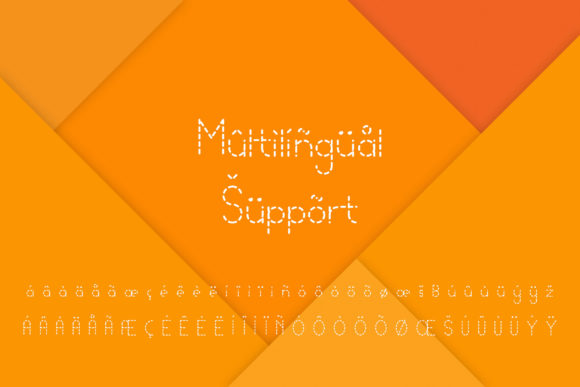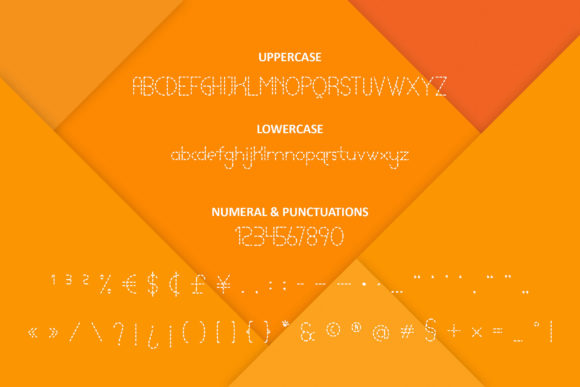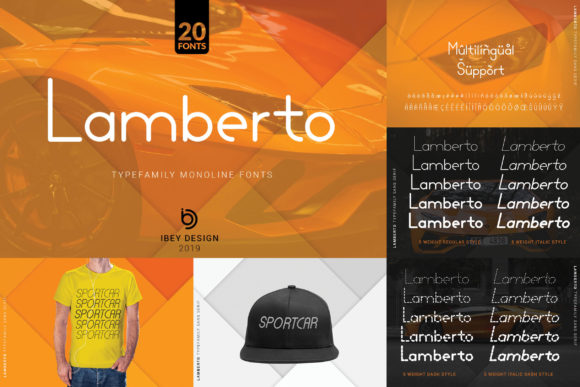
Introduction to Lamberto Light Dash Font
As a designer, have you ever found yourself staring at a blank canvas, searching for the perfect font to bring your creative project to life? The search can be endless, but sometimes, the perfect font comes along and changes everything. For us, that font is Lamberto Light Dash Font – a stunning monoline display font that combines classic lettering with a bold, contemporary twist.
With its high quality design and transparent background, Lamberto Light Dash Font is the ultimate design resource for any creative project. Whether you’re working on a graphic design, branding, or typography project, this font is sure to make a statement. And the best part? It’s available for a free download, making it a valuable addition to any designer’s toolkit.
As a design resource, Lamberto Light Dash Font is a game-changer. Its versatility and modern aesthetic make it a must-have for designers looking to elevate their work and stand out in a crowded market.
Key Features of Lamberto Light Dash Font
- High-quality design for creative projects: This font is perfect for designers who want to add a modern touch to their work.
- Transparent background: The font’s transparent background allows for easy layering and customization in design projects.
- Perfect for digital design: With its modern and sleek design, the Lamberto Light Dash Font is ideal for digital design projects, including web design, mobile apps, and more.
- Resolution: The font is designed for high-resolution displays, ensuring crisp and clear text even at large sizes.
- Size: The font family includes multiple weights and styles, allowing designers to choose the perfect size and style to suit their creative project.
Honest Review: Lamberto Light Dash Font
I recently had the chance to work with the Lamberto Light Dash Font, and I must say it’s a high-quality design resource that can elevate any creative project.
What works well: ✨ The font has a clean and modern design that looks great on both digital and printed materials. It’s also highly legible, making it perfect for body text. The transparent background is a nice touch, allowing for seamless integration with any design.
Here are some of the font’s key features:
- Legible and easy to read
What doesn’t work well: ⚠️ While the font is free to download, the limited character set may be a limitation for some designers. Additionally, the font may not be suitable for projects that require a lot of custom typography.
Overall, I’m impressed with the Lamberto Light Dash Font. It’s a great design resource for any creative project, and its free download makes it an even more attractive option. With a few limitations in mind, I’d definitely recommend this font to designers looking for a high-quality, modern font.
Tips for Getting the Most Out of Lamberto Light Dash Font
Experiment with different font sizes, colors, and combinations to create unique and visually appealing designs. Use the font in conjunction with other design elements to add depth and interest to your projects.
Lamberto Light Dash Font is ideal for creative projects, such as graphic design, branding, and digital art. It’s also suitable for presentations, documents, and other business materials that require a high-quality and professional look.